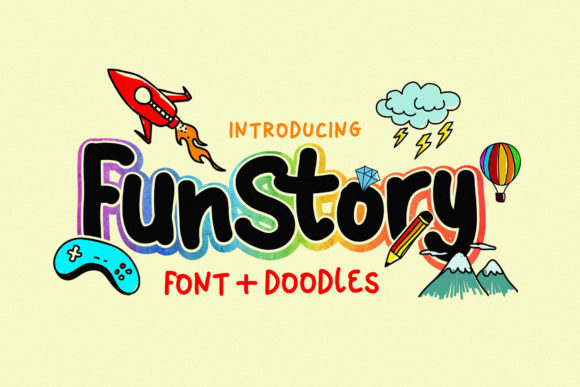
Meet Fun Story Font, a captivating display font that will sprinkle joy into your designs! Created by the talented 160 Studio, this font exudes a playful and whimsical charm that's sure to capture hearts. Its enchanting characters dance across the page, evoking a sense of magic and lightheartedness. With Fun Story Font, you can craft designs that ignite imaginations and create a lasting impression.
Immerse yourself in the world of Fun Story – a font family bursting with personality and flair. Its playful curves and quirky details add a touch of whimsy to any project, making it perfect for invitations, greeting cards, posters, and social media graphics. Unleash your creativity and embark on a typographic adventure with Fun Story. Its boundless versatility makes it the perfect choice for designers seeking a font that effortlessly elevates their work.
Fun Story is not just a font; it's an experience. Its joyous and vibrant characters bring life to your designs, transforming them into captivating masterpieces. Imagine the smiles you'll conjure when your audience encounters your Fun Story-infused creations. Its unique charm captivates, leaving an indelible mark on the hearts and minds of those who behold it. Be it a whimsical invitation or an eye-catching social media post, Fun Story Font casts a spell that's impossible to resist!